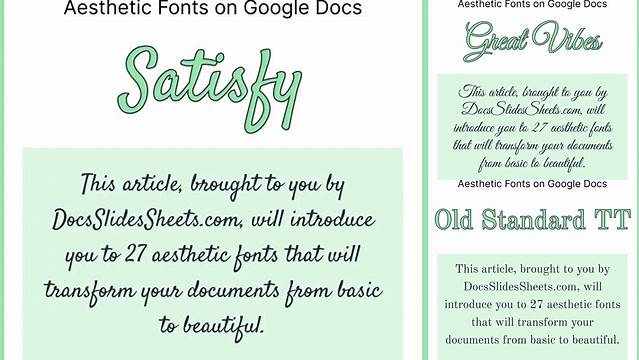
Aesthetic Google Docs Fonts
Hey guys! Ever wanted your Google Docs to look stunning? You know, like, really make them pop? Well, you're in luck! I'm going to spill the tea on the most aesthetic fonts in Google Docs. We'll dive deep into the fonts that not only look great but also help you nail that specific vibe you're going for. Whether you're crafting a killer resume, a charming invitation, or just sprucing up your notes, the right font can make all the difference. Choosing the best font isn't just about picking something pretty; it's about finding a style that aligns with your message and enhances readability. Let's be real, no one wants to squint at a tiny, overly stylized font. So, get ready to level up your document game with these fantastic font choices!
Why Font Choice Matters
Alright, let's get down to brass tacks: Why does font choice even matter? Think of your font as the outfit your words are wearing. It's the first impression you make before anyone even starts reading what you've written. A well-chosen font communicates professionalism, creativity, or whatever tone you're aiming for. It can draw readers in, guide their eyes, and make your content more engaging. On the flip side, a poorly chosen font can be distracting, hard to read, and even send the wrong message. Imagine sending a business proposal written in a font that looks like it belongs on a cartoon! Not ideal, right?
Choosing the right font is about more than just aesthetics. It's about accessibility and readability. You want your audience to effortlessly consume your content. Fonts that are too thin, too bold, or too ornate can tire the eyes and make reading a chore. Remember, you want people to focus on your message, not struggle to decipher the letters. Plus, fonts have their own personalities. A sleek, modern sans-serif font conveys a sense of modernity and efficiency, while a classic serif font can evoke a feeling of tradition and trustworthiness. Understanding these subtle cues is key to using fonts effectively. Choosing the right font, you're not just making things look better – you're making them work better. It's about enhancing the user experience and making sure your words hit home.
Think about the context of your document, too. Is it a formal report? A casual newsletter? A creative project? The font you select should complement the purpose of your document. A resume, for example, might benefit from a clean and professional font like Open Sans or Lato. A party invitation, however, could get away with something a little more playful, like a handwritten-style font or a font with decorative elements. Fonts are like the spices in a dish; a little bit of the right kind can make all the difference, making your writing as delicious to read as it is informative. So, start paying attention to the fonts you see around you, and start thinking of how you can use them to your advantage! So, what are the best aesthetic fonts in Google Docs? Let's find out!
Top Aesthetic Fonts for Google Docs
Okay, here are some of the top aesthetic fonts for Google Docs that will make your documents stand out, like, big time! I've picked these based on a mix of style, readability, and overall appeal. Get ready to copy and paste these into your Google Docs to test them out, these fonts are ready to impress!
1. Roboto
First up is Roboto. This is a versatile sans-serif font that's been a favorite among designers and writers, and for good reason. It's super readable, clean, and modern. Roboto is like the perfect pair of jeans – it goes with everything! It's great for everything from body text to headings.
Why is Roboto so awesome? It's designed to be functional first and foremost. The letterforms are open and friendly, making it easy on the eyes, even during long reading sessions. It looks fantastic on screens, which is crucial when you're using Google Docs. The font family offers several weights and styles, allowing you to add emphasis and create visual hierarchy. Use bold for your headings, normal weight for your body text. The different weights within Roboto let you customize your text without having to search for other fonts. Roboto's clean aesthetic makes it a perfect choice if you want a professional and contemporary look. Trust me on this one, Roboto is your go-to font if you need a workhorse that looks good in almost any situation. Plus, it's a default font in Google Docs, so you're probably already familiar with it.
2. Open Sans
Next on the list is Open Sans. Like Roboto, this is another sans-serif font that's both stylish and practical. In fact, many people like it even more than Roboto. Designed by Steve Matteson, Open Sans is incredibly legible and offers a warm, friendly feel, making it an excellent choice for body text.
Open Sans is neutral, which means it doesn't have a strong personality and won't distract from your content. This is a huge plus, especially if you want your words to be the main focus. It has a tall x-height (the height of the lowercase 'x'), which improves readability, particularly on screens. This is a real boon when you're putting together presentations or documents that people will be viewing on different devices. Open Sans also comes in multiple weights, giving you plenty of flexibility in your design. It is also a great choice for website and app interfaces, so you're in good company. If you are looking for a clean, modern, and versatile font that prioritizes readability, Open Sans is your best friend. Open Sans is incredibly flexible and is useful for all types of documents and designs.
3. Lato
Here's a great one: Lato. This is a sans-serif typeface designed by Łukasz Dziedzic. Lato has quickly become super popular for its friendly and approachable feel, with a touch of sophistication. It's a bit rounder than Roboto and Open Sans, giving it a unique aesthetic.
Lato is known for its harmonious blend of curves and sharp edges, resulting in a balanced and elegant look. This balance makes it exceptionally readable, even in smaller sizes. Lato is a solid choice for a professional feel, that has a personal touch. The different weights, from light to bold, give you a wide range of creative options. The best part about Lato is that it is great for headings and body text, making it very practical for various design projects. If you want a font that's both professional and approachable, Lato is an excellent choice that won't disappoint. It has a distinctive character that is sure to make your documents memorable, so go ahead and try it out, guys!
4. Montserrat
Next up, let's talk about Montserrat. Inspired by the architectural signage of the Montserrat neighborhood in Buenos Aires, this is a geometric sans-serif that is super eye-catching and modern. It's perfect if you want to add a touch of urban flair to your documents.
Montserrat is known for its clean lines and strong visual impact, making it an ideal choice for headings and titles. Its tall x-height and consistent stroke weights ensure excellent readability. With multiple weights and styles, you can create a hierarchy of text that draws the reader's eye. This font has a bold, confident personality that works well for a variety of creative projects. If you want a font that makes a statement, Montserrat is a fantastic option. Just be careful when using it for large blocks of text, as it is sometimes more effective for headings or shorter texts.
5. Poppins
Alright, let's get into Poppins. Another geometric sans-serif, Poppins, is designed for the web. This font is incredibly versatile and offers a friendly, approachable look. It is known for its extensive character set and excellent readability.
Poppins is a great option if you're targeting a wide range of audiences. It strikes a perfect balance between simplicity and style. With its clean lines and various weights, Poppins can adapt to nearly any design challenge. It is fantastic for creating visual interest in both headings and body text. Its geometric forms give a modern touch to your documents. Poppins has a good variety of styles that allow you to use it in multiple ways, making it a very useful tool. If you want a contemporary font that is easy to read and has tons of flexibility, Poppins is your go-to choice. Give this one a shot, you will love the results!
6. Playfair Display
Let's add some elegance! Playfair Display is a serif font that screams sophistication. It is perfect for headings and titles, giving your documents a touch of class. Inspired by the design of the 18th and 19th centuries, Playfair Display is all about elegance and readability.
Playfair Display is characterized by its high contrast and delicate serifs, making it ideal for creating a formal or luxurious feel. It is great for invitations, certificates, and any project that needs to stand out. It is a great choice for titles and headings because of its impact. With its classic design, you can add a touch of grace and style to your projects. If you're aiming for a polished, upscale look, Playfair Display is your best friend. Playfair Display makes your document memorable.
7. Raleway
Next up, Raleway is a super elegant sans-serif typeface. Originally designed as a single weight, it has now expanded to a complete family of styles, making it super versatile. It's perfect for everything from headings to body text.
Raleway is known for its sleek and modern look. The simple design is super readable and easy on the eyes, making it perfect for a variety of projects. The clean lines are super versatile and look great in print or on a screen. The different weights give you a lot of flexibility, and it is great for everything, from creating a professional-looking resume to designing a cool invitation. Raleway's balance of style and readability makes it a great option if you are looking for a sophisticated look without sacrificing readability. It gives a modern, professional look.
8. Merriweather
Last but not least, let's get into Merriweather. This is a serif font designed specifically for on-screen reading. With its slightly condensed letterforms and sturdy serifs, Merriweather is perfect for body text, ensuring readability on all kinds of devices.
Merriweather's readability is fantastic on screens, which is a crucial factor when choosing fonts for Google Docs. Its sturdy design looks great without causing any distraction. The different weights and styles offer you a good variety of options when you are trying to create a sense of visual order and hierarchy. It's a smart choice if you want a comfortable reading experience on your devices. If you want a readable and friendly serif font that's optimized for screens, then Merriweather is your friend. If you are looking for a font that offers comfort and clarity, Merriweather will be your go-to!